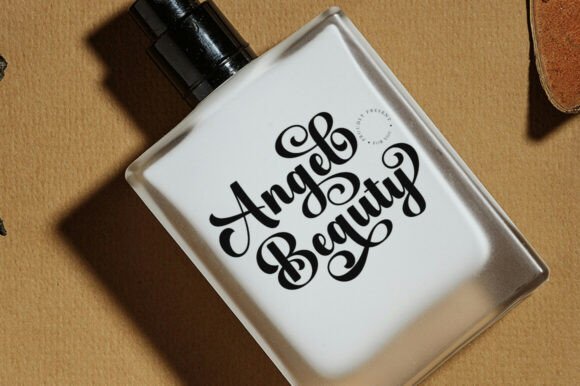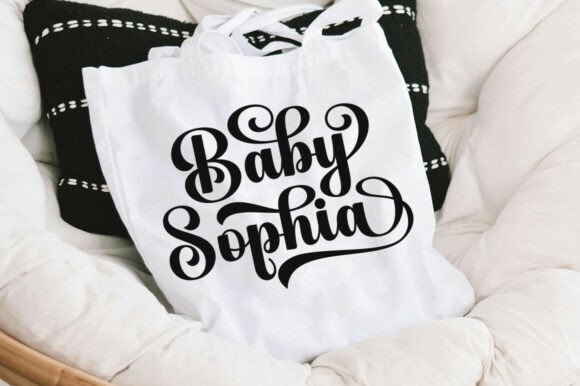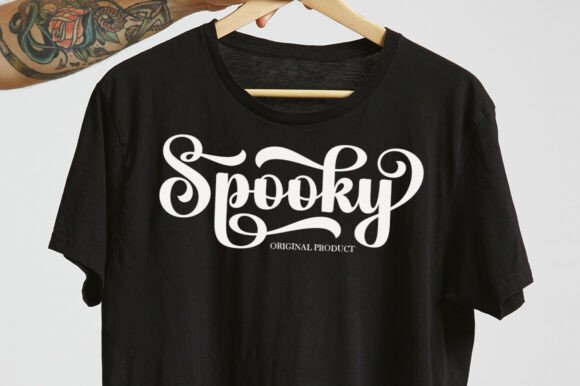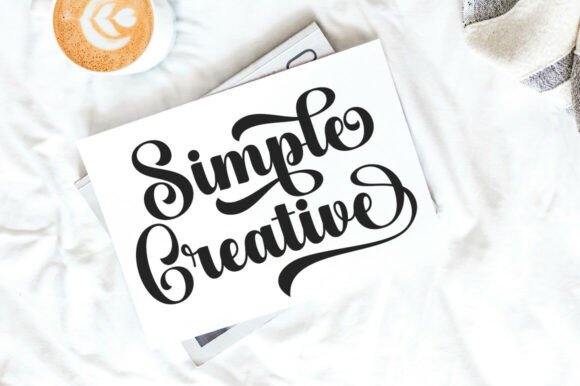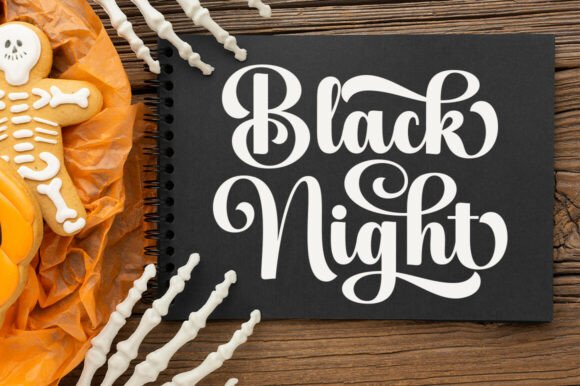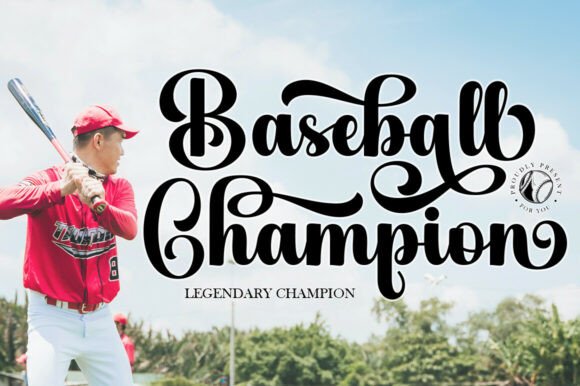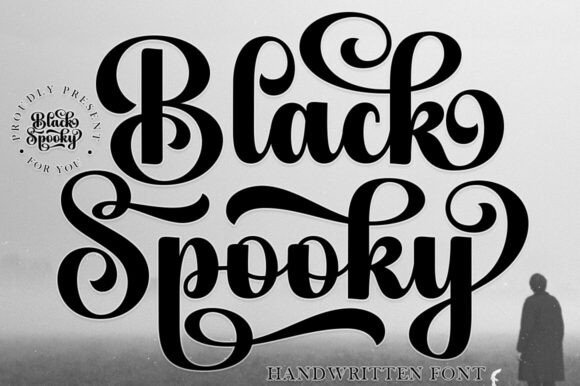
Unveiling the Elegance of Black Spooky Font: A Timeless Choice for Designers
In the realm of typography, few fonts manage to strike a balance between classic allure and contemporary sophistication. Black Spooky, an exquisitely designed script font, achieves this delicate balance with remarkable finesse. Its distinctive character variations and elegant aesthetic make it an instant favorite among designers and crafters seeking to infuse their projects with a touch of timeless charm.
The Allure of Black Spooky
Black Spooky is remarkably clean and feminine, boasting an enchanting readability that can be attributed to its gracefully connected letters. This elegant design makes it an ideal choice for a wide range of applications, from restaurant menus to fashion labels, invitations to logos. The font’s versatility is one of its most compelling attributes, allowing designers to experiment with various creative projects.
Whether you’re designing stationery, novels, magazines, or books, Black Spooky adds a stylish charm that elevates every design. Its application extends to greeting cards, wedding invites, packaging design, and advertising collateral, where it imparts a touch of elegance that is truly unforgettable. The font’s ability to blend seamlessly into various design contexts makes it a valuable addition to any designer’s toolkit.
Black Spooky’s design is characterized by its:
- Distinctive character variations: Each letter is uniquely crafted, offering a high degree of individuality that sets Black Spooky apart from more uniform fonts.
- Elegant aesthetic: The font exudes a sense of sophistication and refinement, making it perfect for projects that demand a high level of elegance.
- Clean and feminine appearance: Black Spooky’s clean lines and feminine charm make it an excellent choice for designers looking to create visually appealing and approachable designs.
- Timeless appeal: Unlike trend-specific fonts, Black Spooky’s classic design ensures it remains relevant across various design projects and over time.
Applications of Black Spooky
The versatility of Black Spooky font makes it suitable for a myriad of applications, including:
- Restaurant menus: Add a touch of elegance to your menu designs, making the dining experience even more special for your customers.
- Fashion labels: Elevate your brand with a sophisticated and stylish font that resonates with fashion enthusiasts.
- Invitations and greeting cards: Make your invitations and greeting cards stand out with a font that exudes warmth and elegance.
- Logos and branding: Create a lasting impression with a logo that incorporates Black Spooky’s unique and captivating aesthetic.
- Packaging and advertising: Stand out in a crowded market with packaging and advertising materials that showcase the font’s distinctive charm.
Why Choose Black Spooky?
Black Spooky offers a unique combination of style, versatility, and timeless appeal, making it an excellent choice for designers and crafters. Here are a few reasons why Black Spooky should be your go-to font:
- Elegance and sophistication: Black Spooky brings an unparalleled level of elegance to any design project.
- Versatility: Its adaptability across various design contexts makes it a valuable asset for any designer.
- Readability: The font’s clean and connected letters ensure that your designs are not only beautiful but also easy to read.
- Timelessness: Black Spooky’s classic design ensures that your projects will remain stylish and relevant for years to come.
In conclusion, Black Spooky font is a remarkable addition to the world of typography, offering a perfect blend of classic allure and contemporary sophistication. Its elegant design, versatility, and timeless appeal make it an ideal choice for a wide range of design projects. Whether you’re a professional designer or a crafting enthusiast, Black Spooky is sure to elevate your designs and leave a lasting impression on your audience.